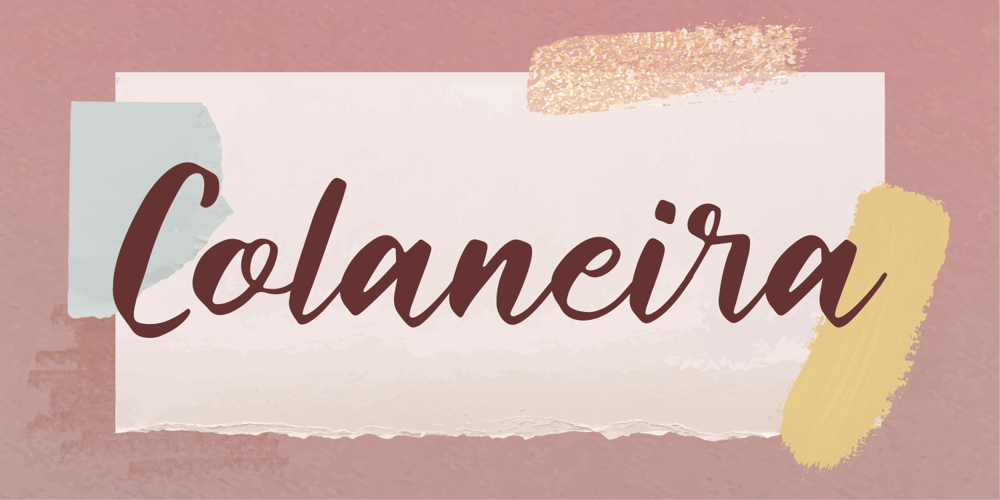
Colaneira Font Family was designed by ANGGI HERMAWAN and published by Forberas Club. Colaneira contains 1 styles and family package options. Colaneira is handwritten font. Will be nice if you application this font for cute, special moment, beauty, tees, simple word quotes, wedding party, invitation.